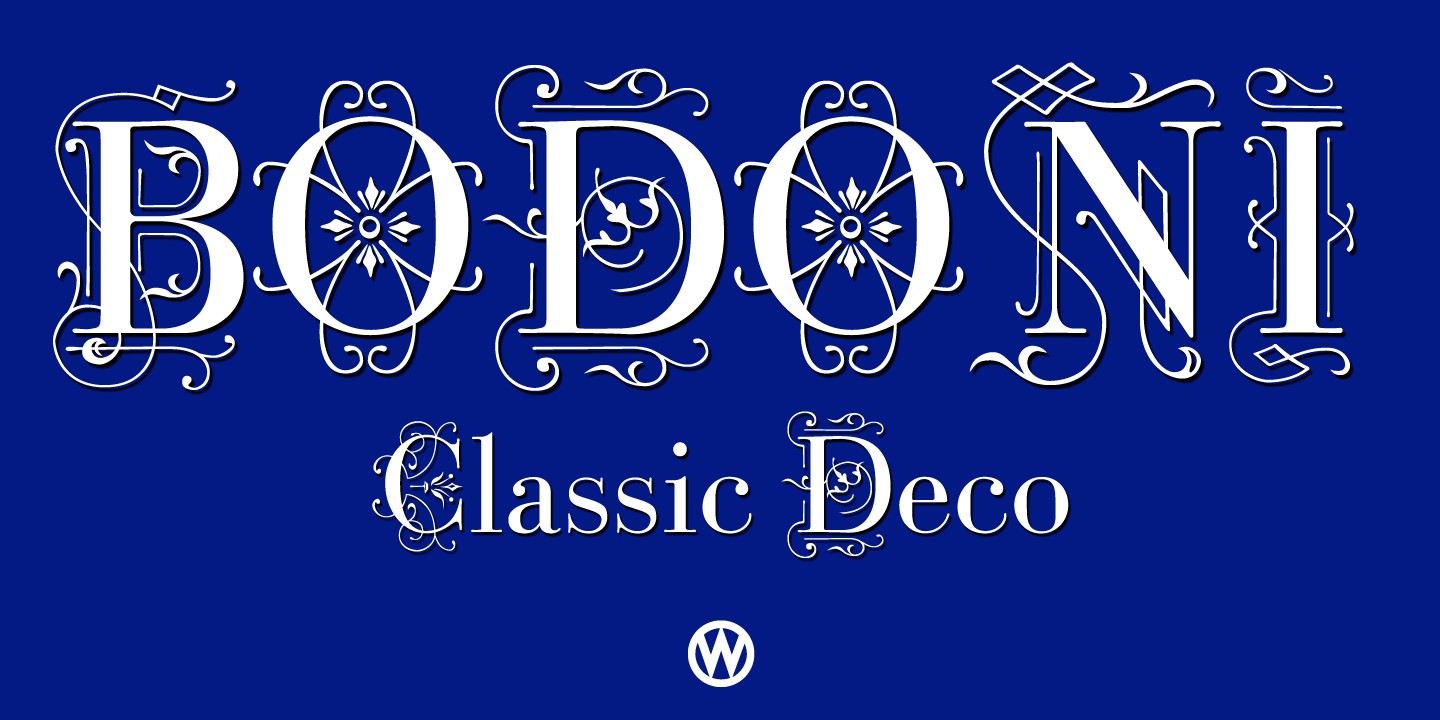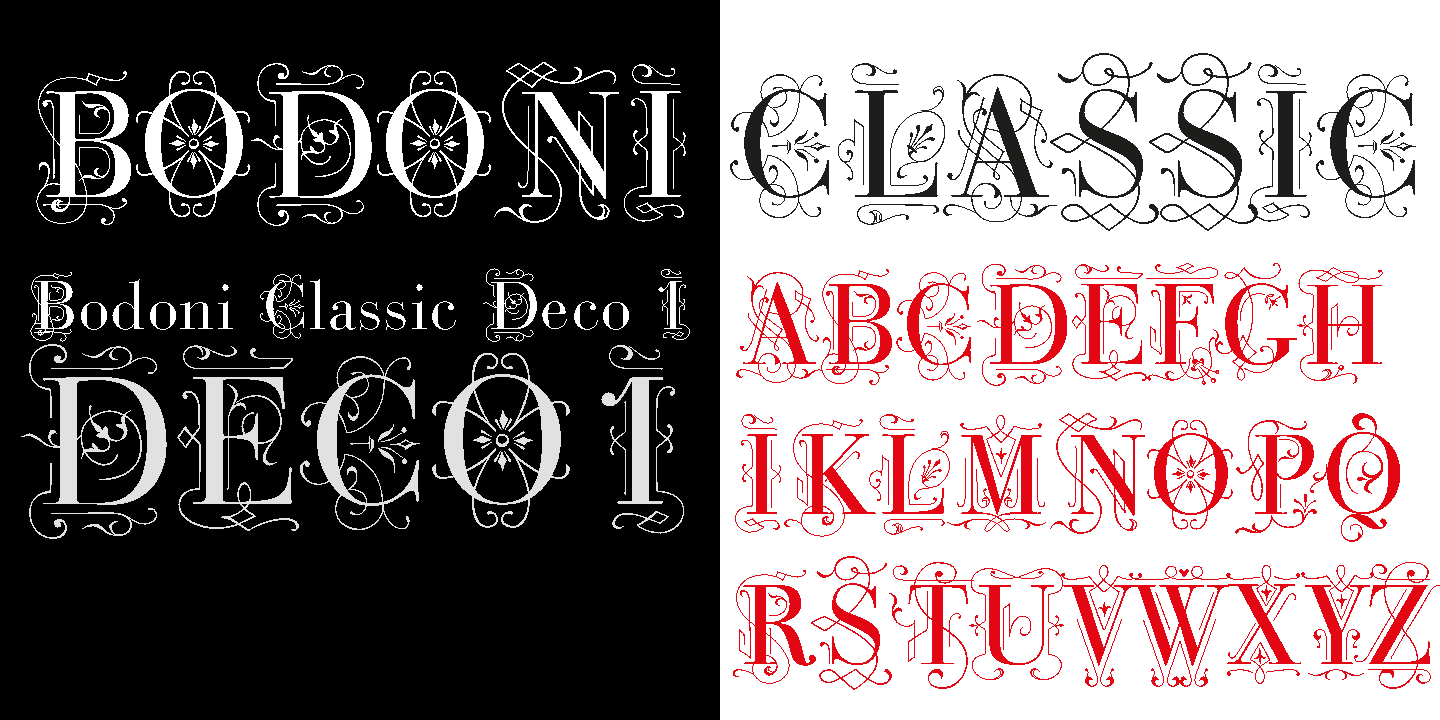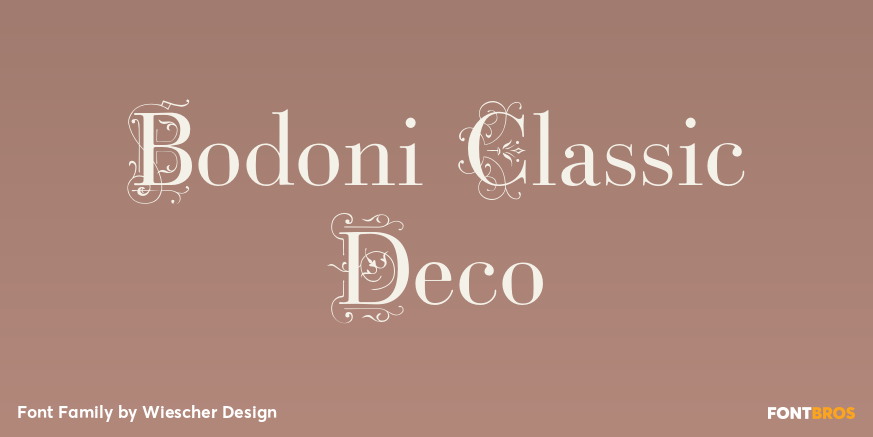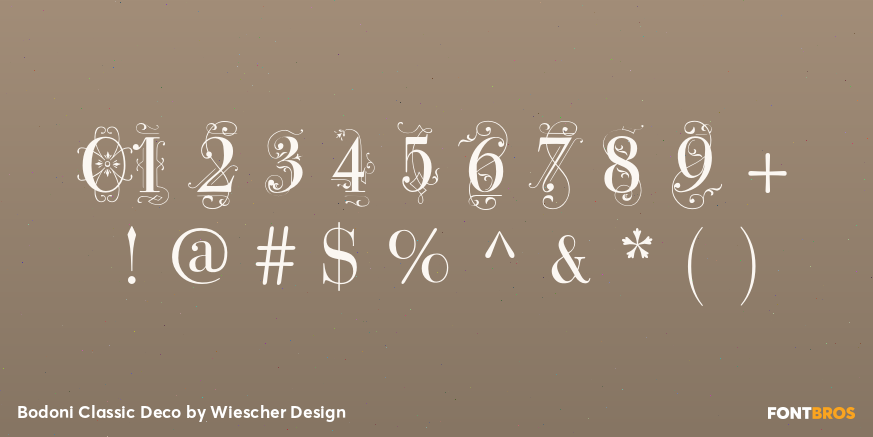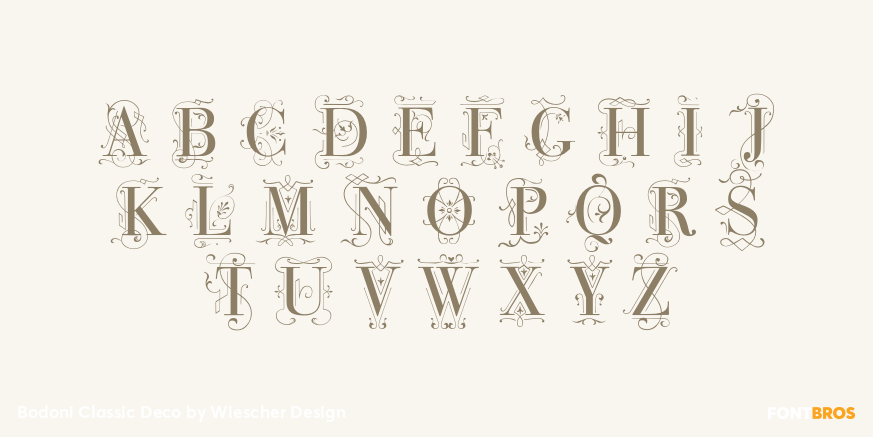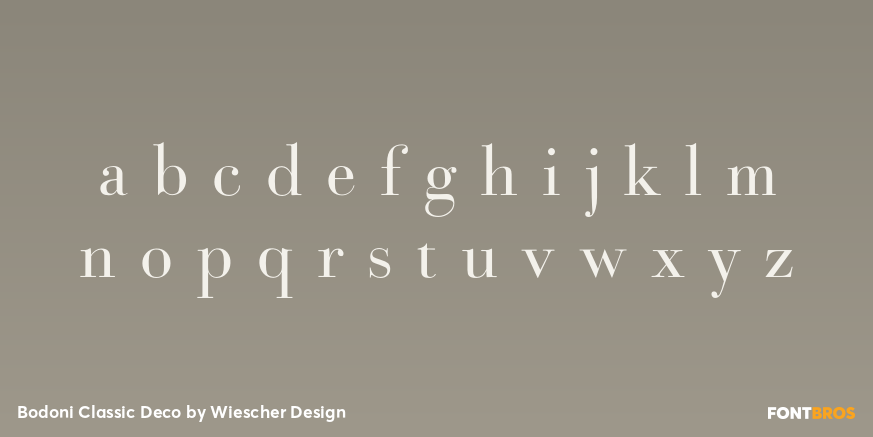
Bodoni Classic Deco
Font Family by Wiescher Design
Bodoni Classic Deco is against all rules. Giambattista Bodoni himself would probably hate me for doing it; he was a real purist.
The whole idea of the Bodoni typeface is no embellishments and here I go and decorate those nice clear letters. Shame on me!
But I find this is a very nice and useful typeface for all kinds of cards and certificates. So I just did it for all of you out there that are not born purists, but want a little embellishment to their lives. And to make things worse, I added a Small Caps cut. I even decorated it.
Yours, breaking all the rules, Gert Wiescher